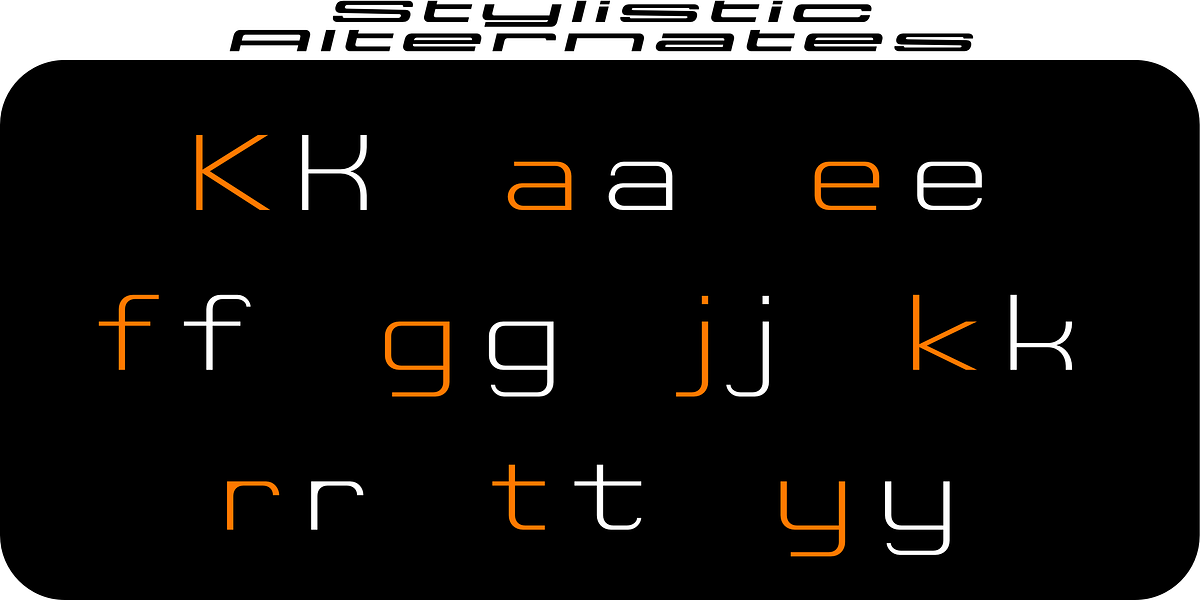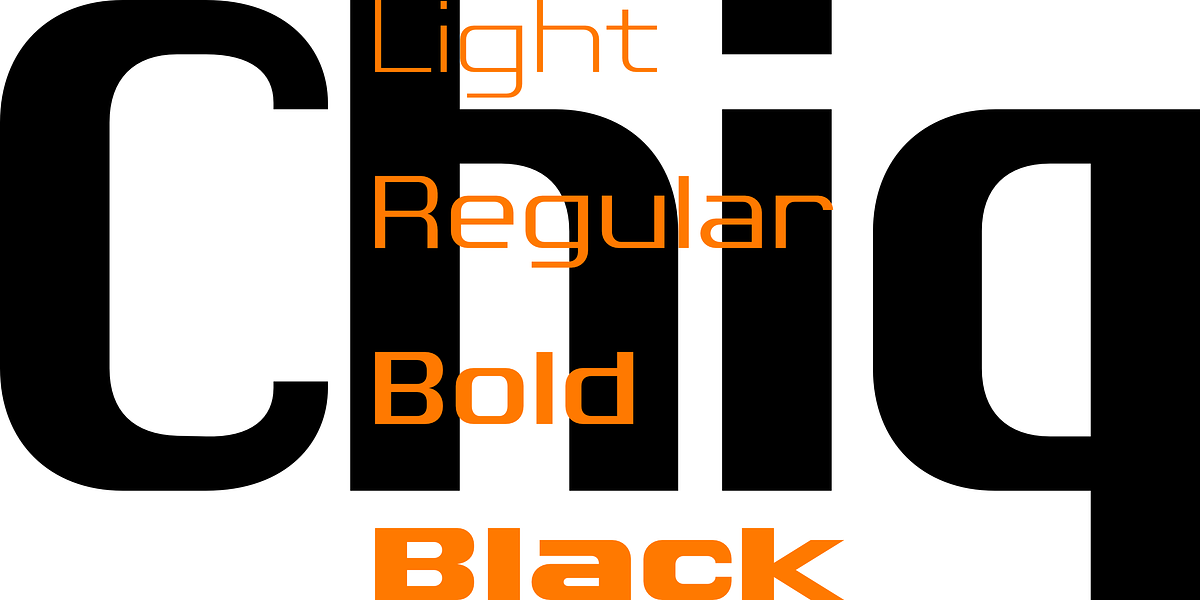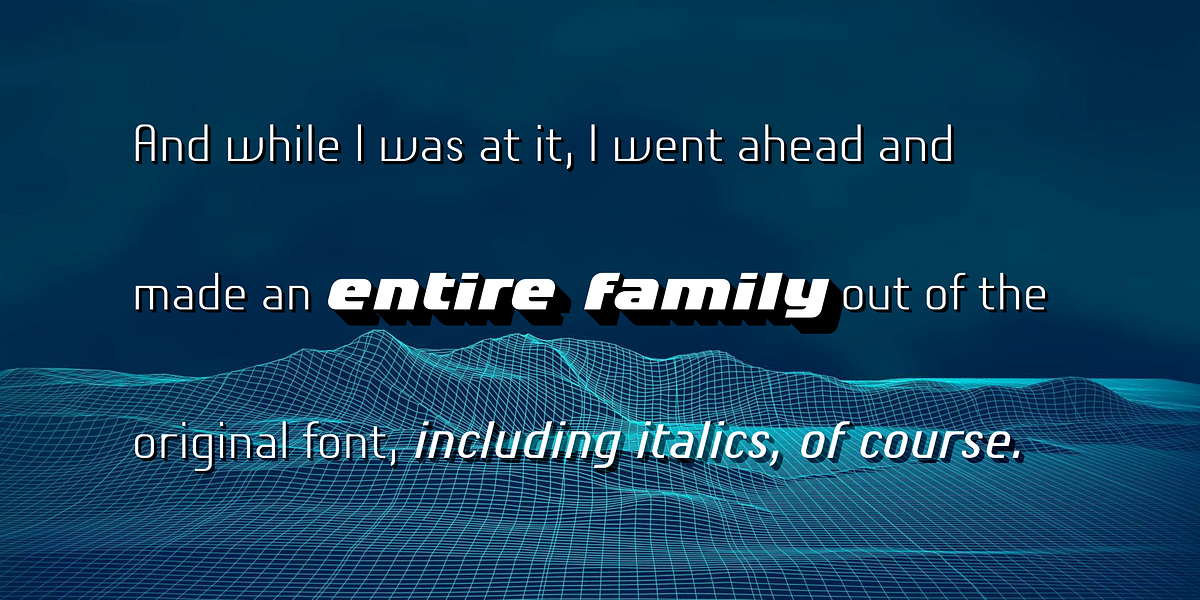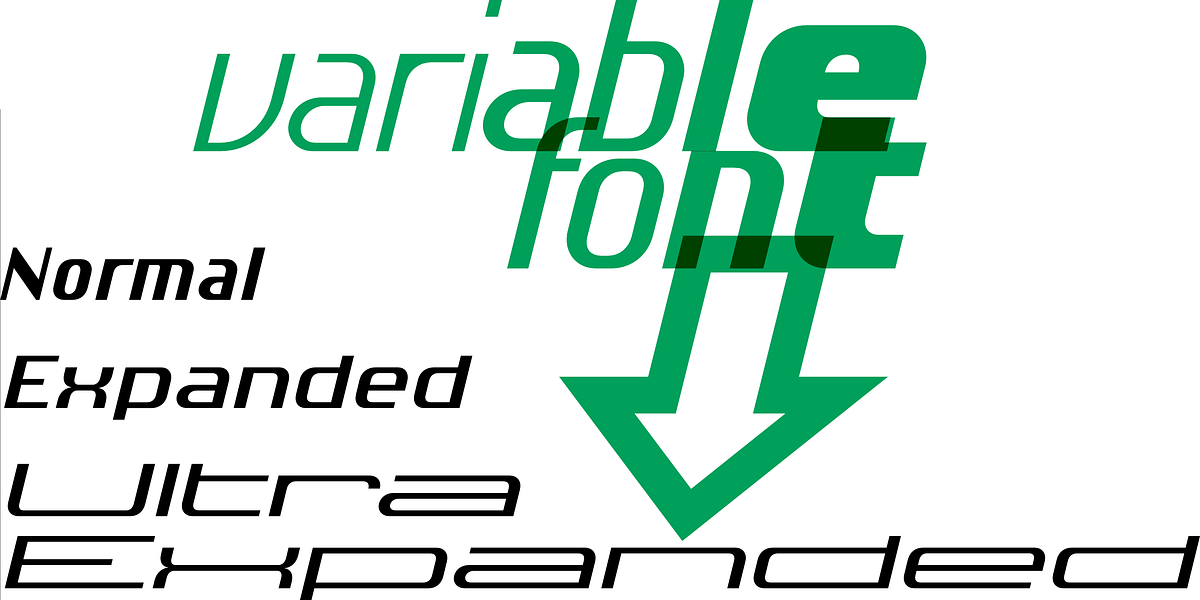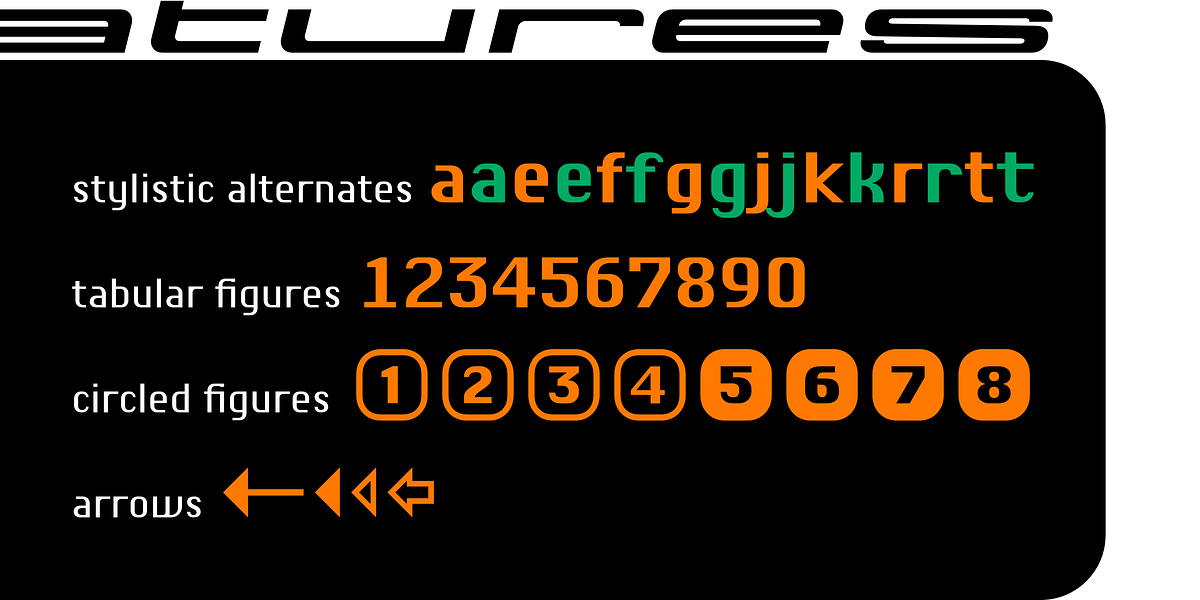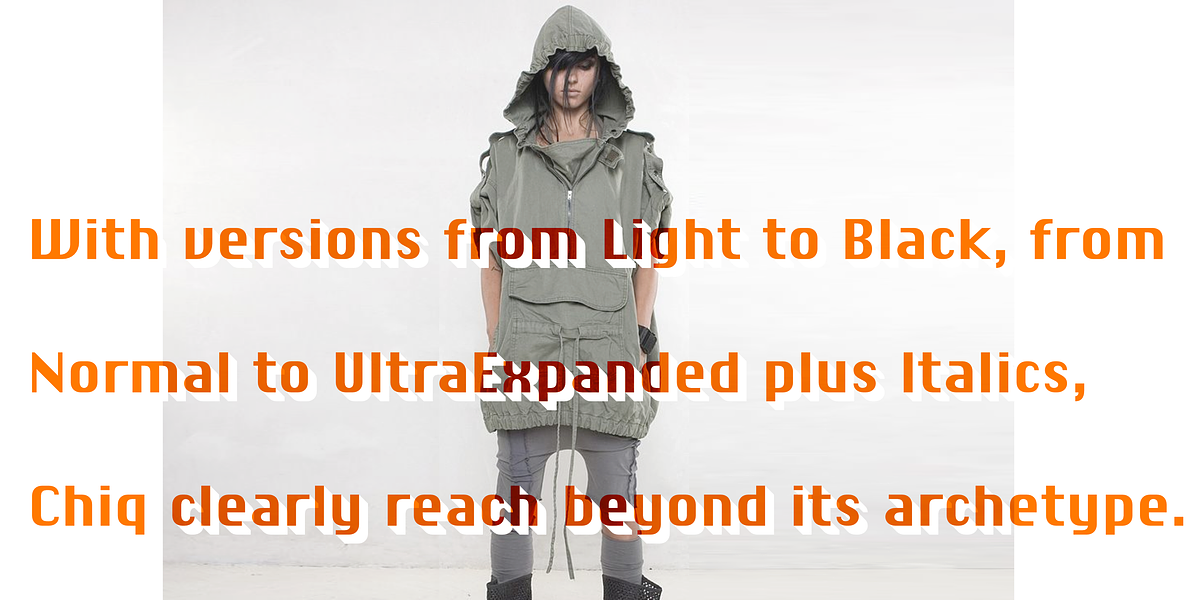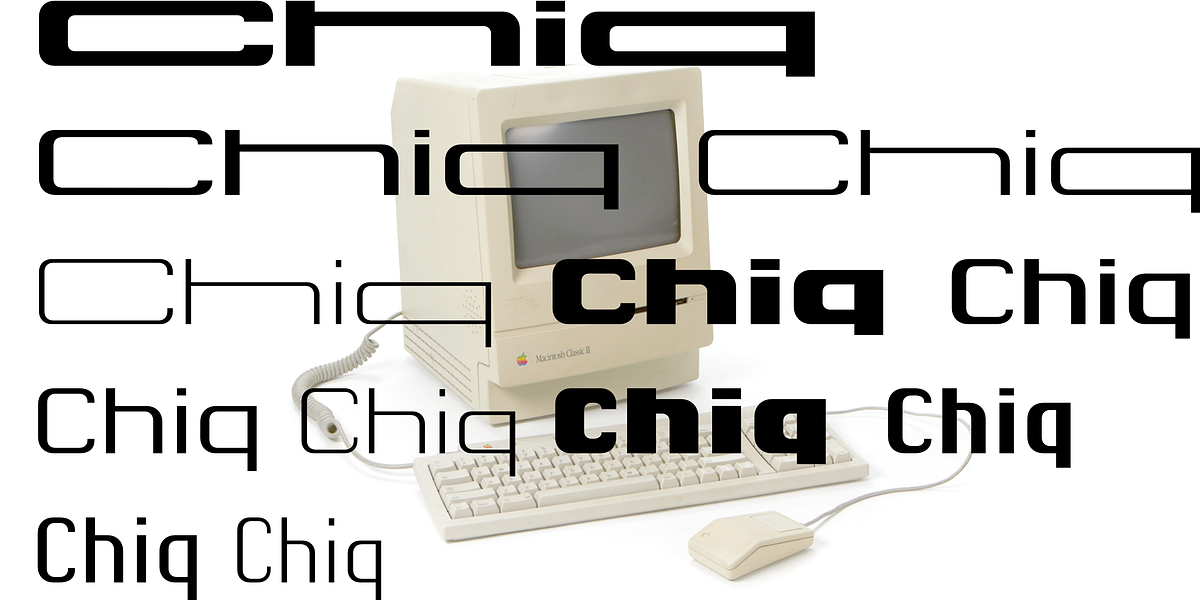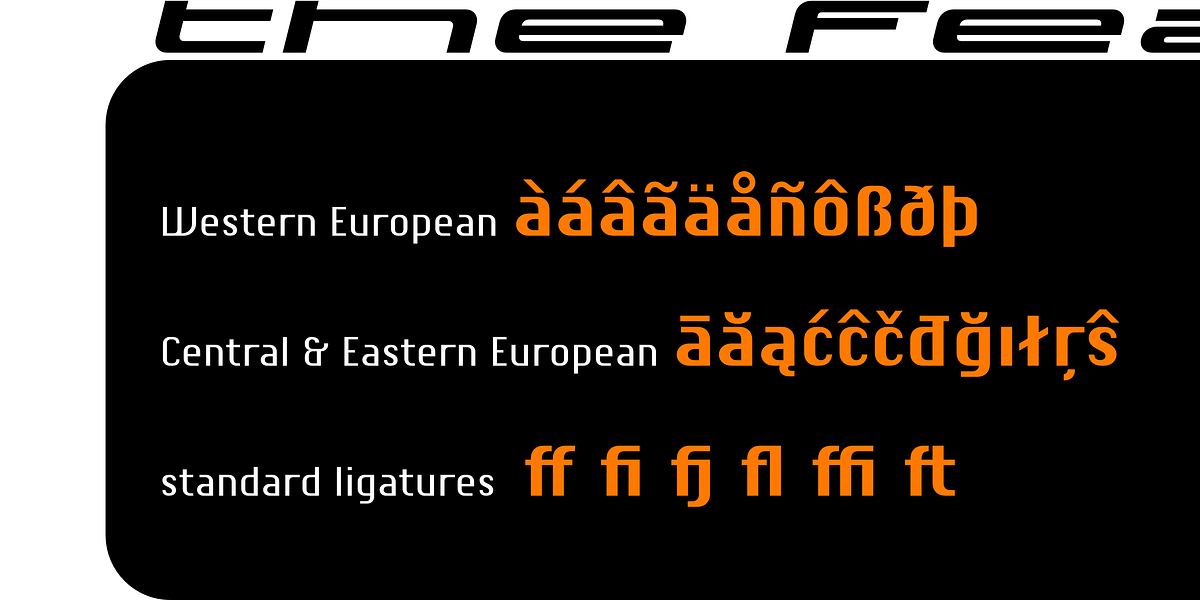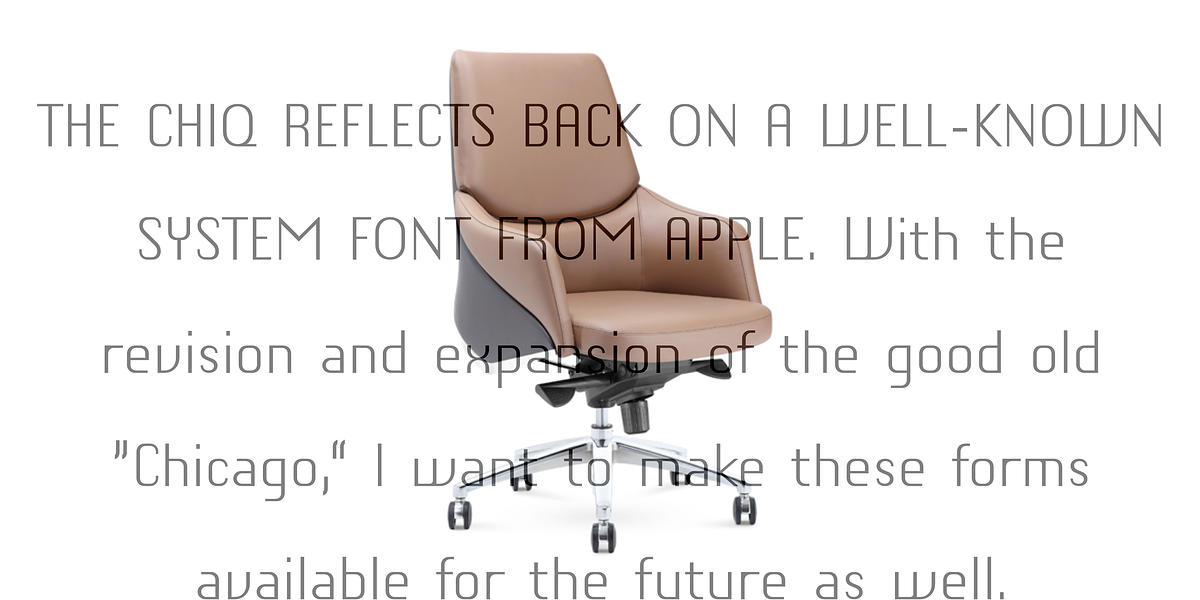
Chiq
Chiq is a modern geometric sans serif font inspired by the classic Mac OS system font 'Chicago'. It features a range of weights from light to black and widths from normal to ultra expanded. The font's design prioritizes simplicity with clean lines and a high contrast between stems and hairlines. This makes it suitable for both body text and display purposes, though its somewhat unusual letterforms may make it less ideal for long passages of text. Notably, Chiq is available as a variable font, allowing users to access all variations within a single file.